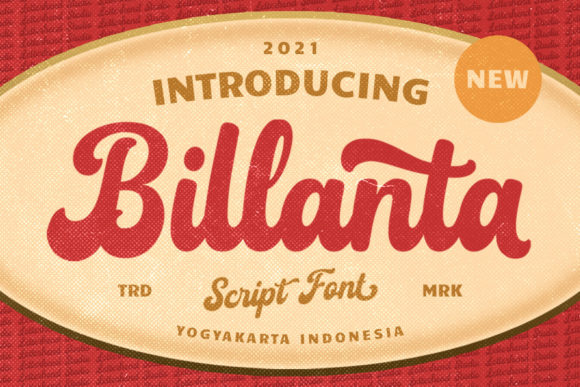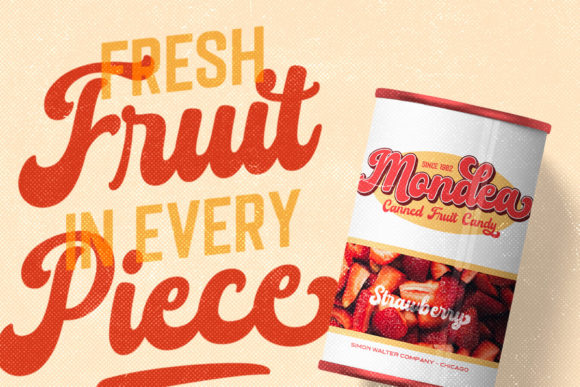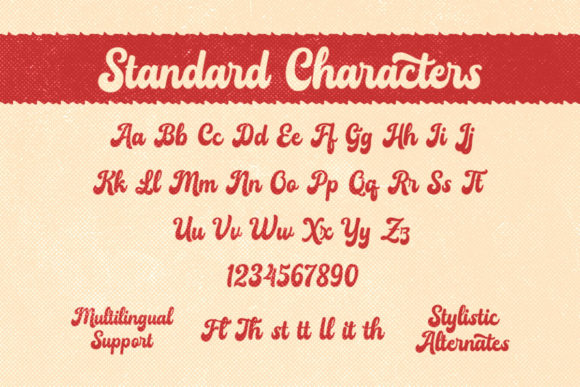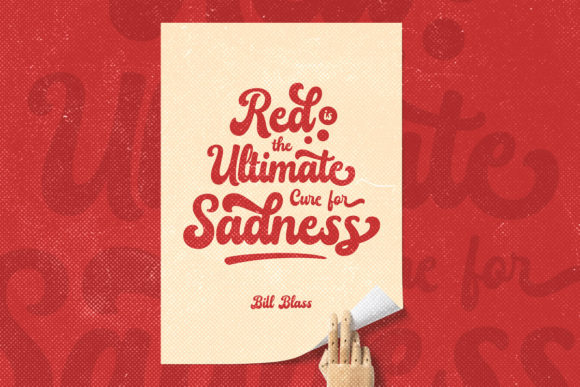
Billanta Font
About Billanta Font
Billanta is a gorgeous and bold handwritten font, crafted to give your headlines and logotype projects a retro touch. This font reads as strong, confident, and dynamic and can add tons of nostalgic character to your designs.